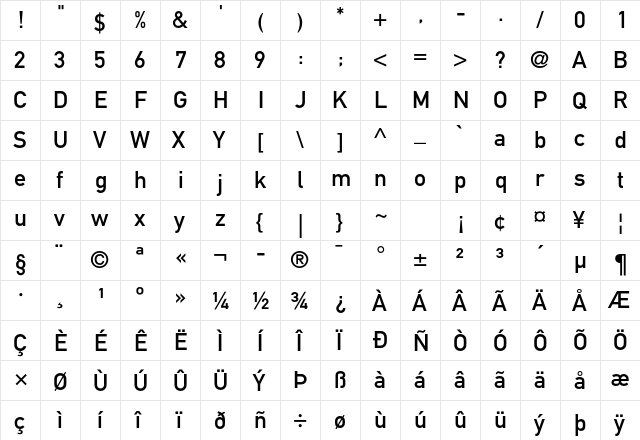
DIN 1451 Std Mittelschrift
| Designer | Linotype Staff |
Design Context for DIN 1451 Std Typeface
DIN 1451 Std takes a measured approach to typography — its balanced proportions and neutral character make it a reliable workhorse for both digital and print work.
Pro Tip: Pair DIN 1451 Std with a font of contrasting weight or personality to build a more expressive typographic hierarchy.